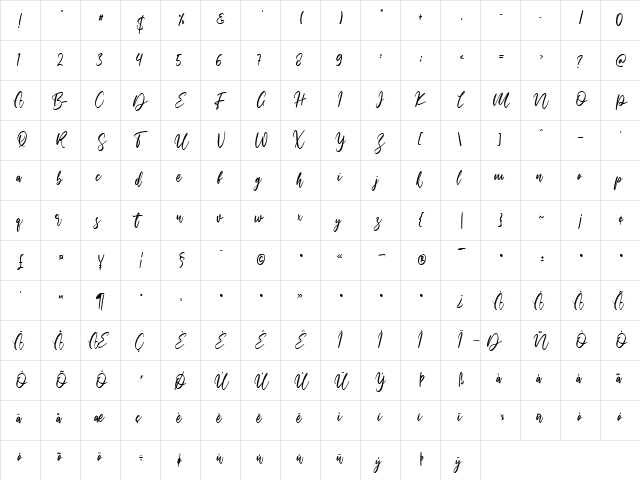
Walentiny Regular
Design Context for Walentiny Typeface
Walentiny is a composed and adaptable typeface that performs quietly and consistently across a wide range of design contexts.